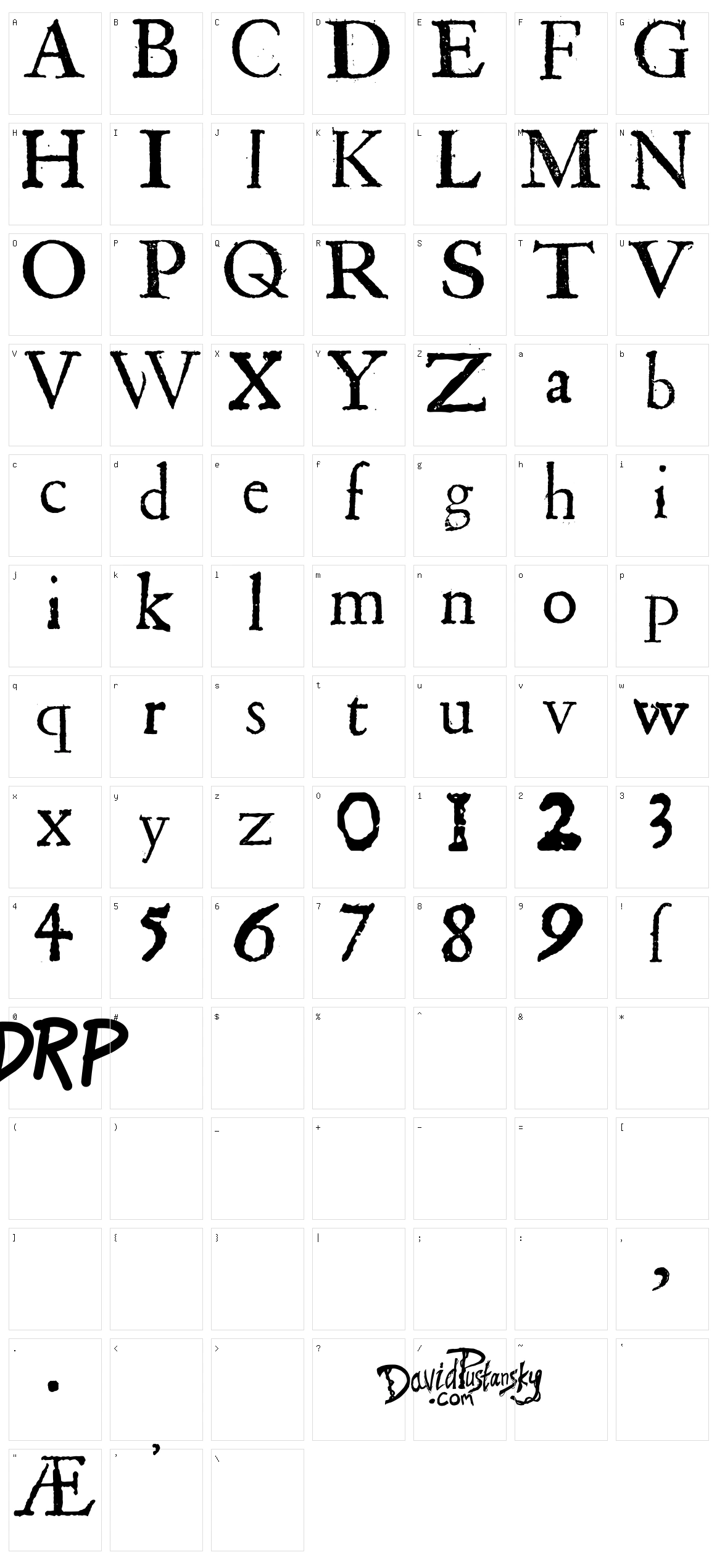
The free font Shakespeare First Folio Font is carefully designed by xstreamed.tv, showcasing a thoughtful balance of creativity and usability and falls under the Eroded font style. When you download the ZIP file, it contains only 46.05 KB of font files, making it lightweight and quick to download. Please review the license details below to understand permitted usage and distribution rights. If license information is not available, we recommend using this font for personal projects only or contacting the author directly for commercial usage permissions.